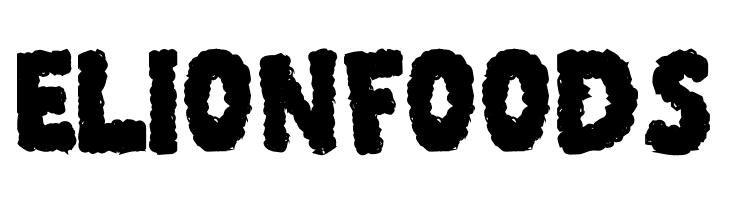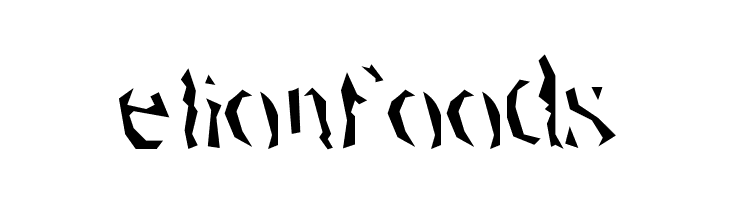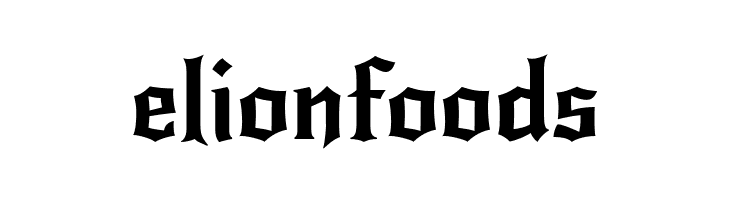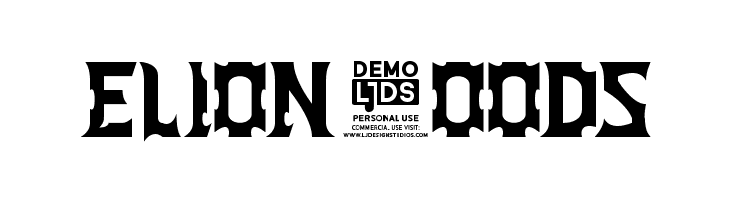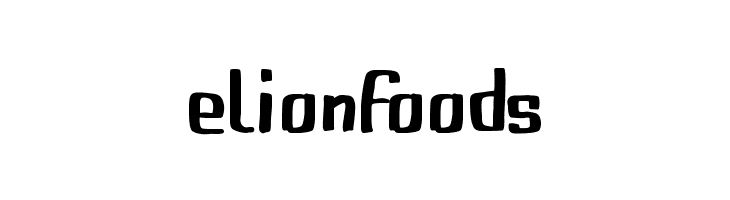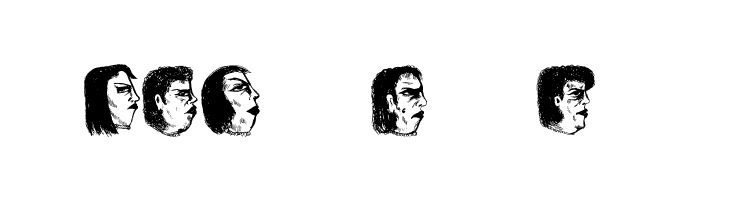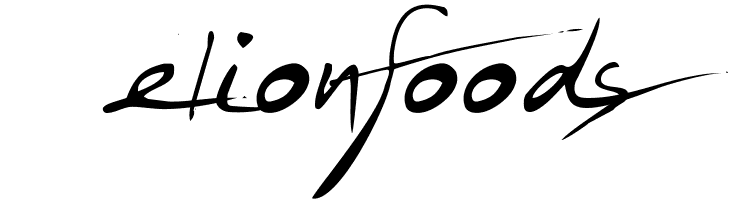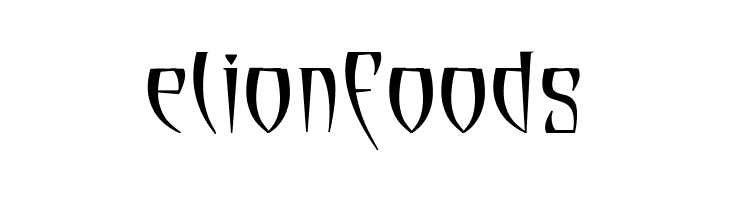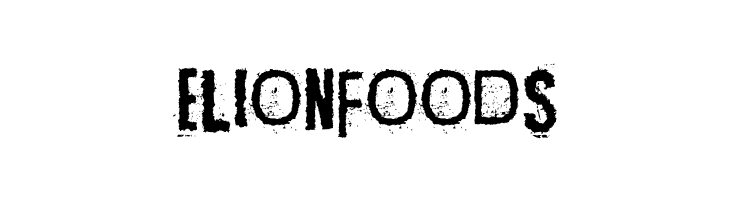
A bold, distressed font with a corroded, textured appearance.
A decorative, fragmented font with sharp, angular shapes and a chaotic artistic style.
A bold, gothic-inspired font with sharp, angular lines and dramatic serifs.
A decorative, distressed font with a textured, edgy appearance.
A playful, hand-drawn font with irregular, wavy letterforms.
Font made of expressive, hand-drawn profile faces.
A dynamic, expressive handwritten font with energetic strokes and fluid motion.
A gothic-inspired font with sharp serifs and high contrast strokes.
A bold, distressed font with a grunge aesthetic and textured appearance.